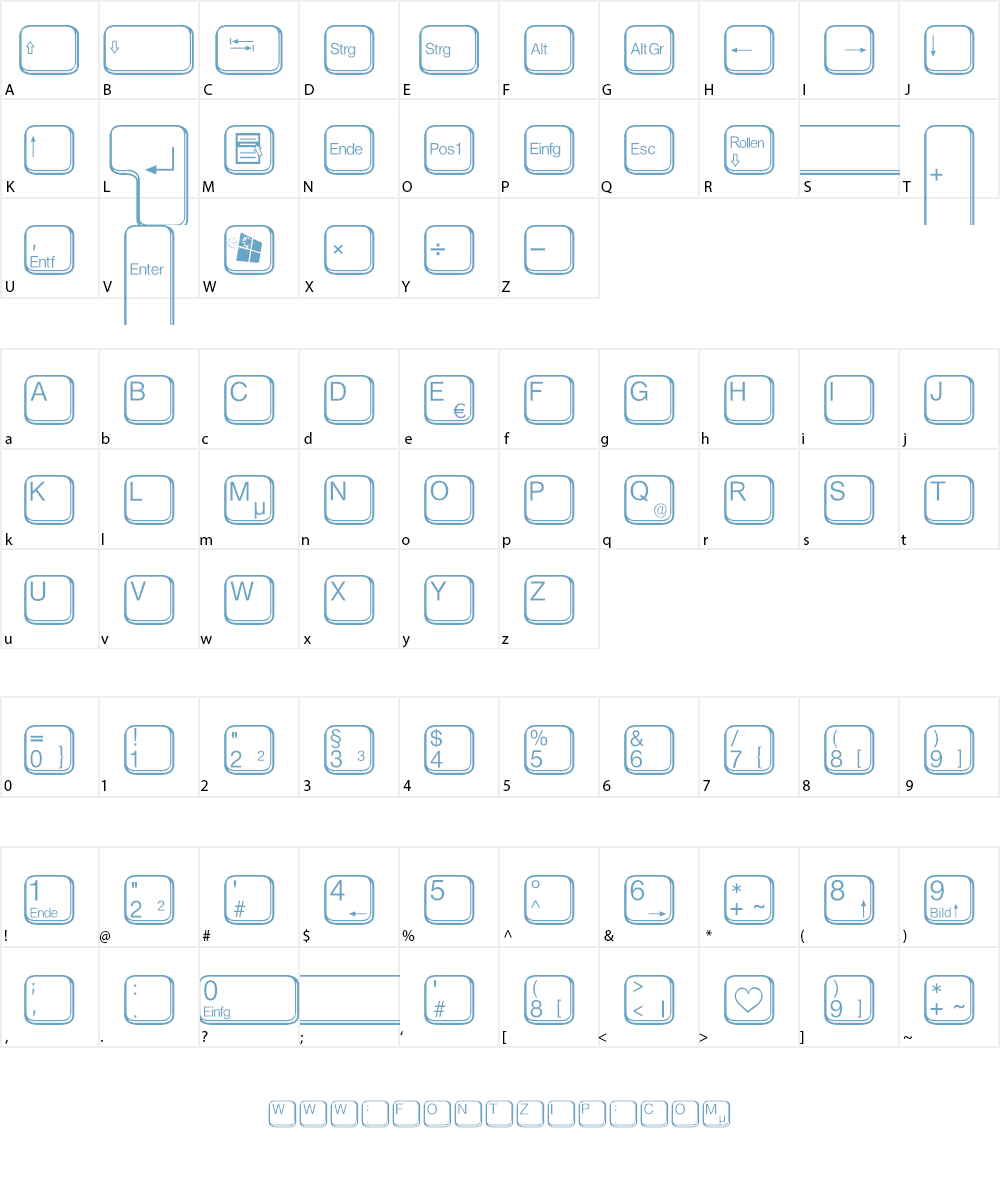
I needed good graphics of a German QWERTZ keyboard, so I made this font according to my needs. It contains all standard keys plus a heart key. If you're interested in a PDF showing how to type the keys, please visit my site www.anke-art.de